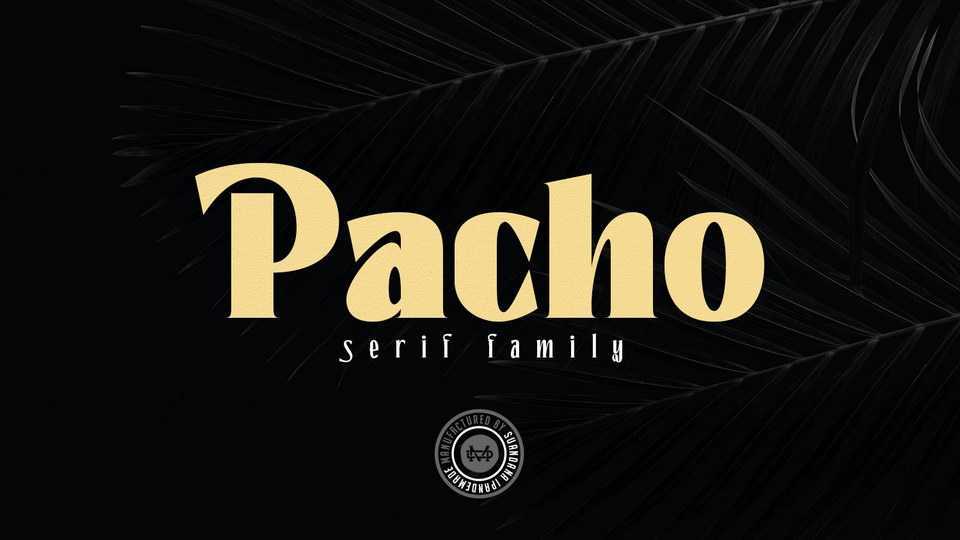
Download Pacho font, a decorative serif typeface with unique and classy look. Use Pacho for any branding project, product packaging, invitation, quotes, t-shirt, label, poster, logo etc.